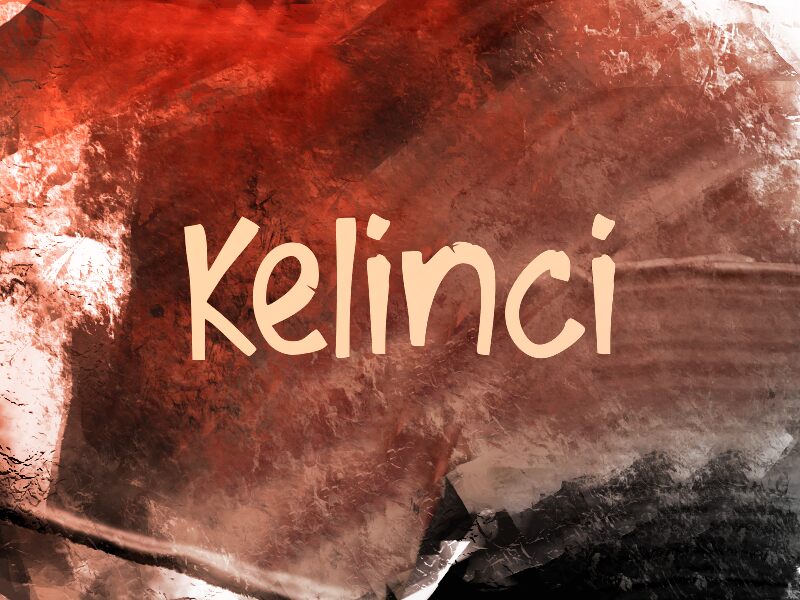
K Kelinci font is a playful and friendly display typeface designed by wepfont.com. The font has a lot to offer to a designer who is working on a fun new project looking to appeal to a young casual audience. The font family has a quirky yet very simple and informal look with small random waves and bends. It’s somewhat irregular letting it shape novel and joyful graphics. All the qualities of a comic font with a unique twist of its own!
Use K Kelinci in your comic design projects, gaming visuals, YouTube channel art, party invitations, funny posters for kids, adult comedy shows and other events, book covers, funny advertisements, and other youth-oriented materials. Several of the mentioned use cases may include branding purposes.
Kelinci is a beautifully designed free font that brings a touch of elegance to your projects. Ideal for a variety of applications, this font can be used in graphic design, branding, or any creative work that demands an artistic flair. With its unique characteristics, Kelinci stands out while maintaining readability and versatility.